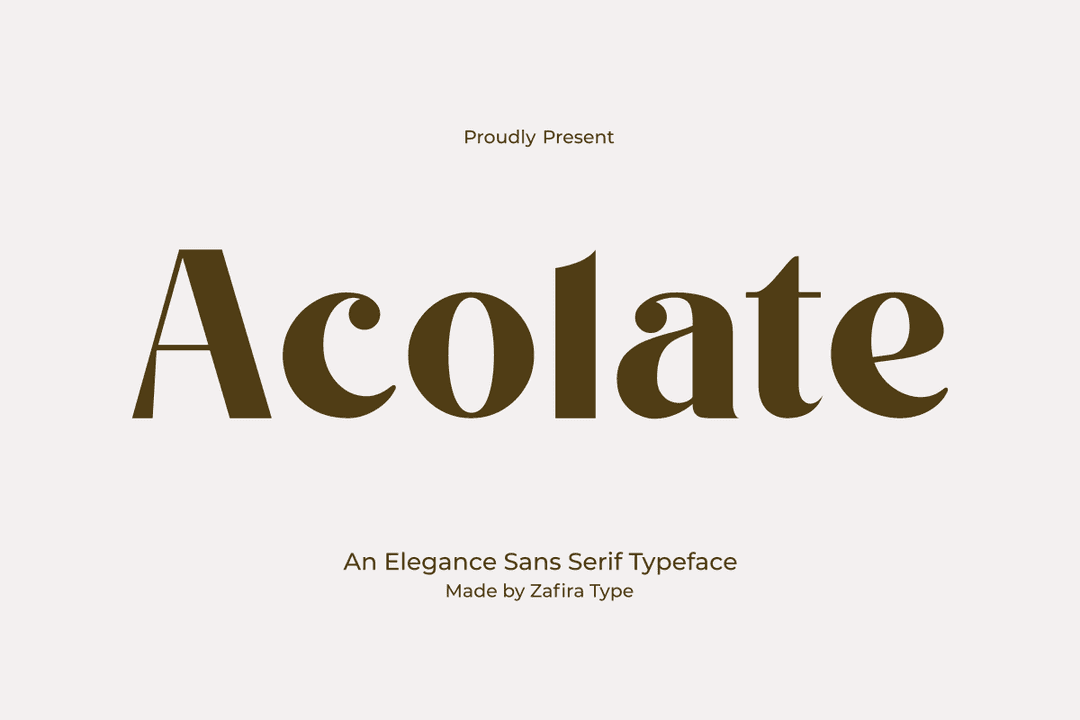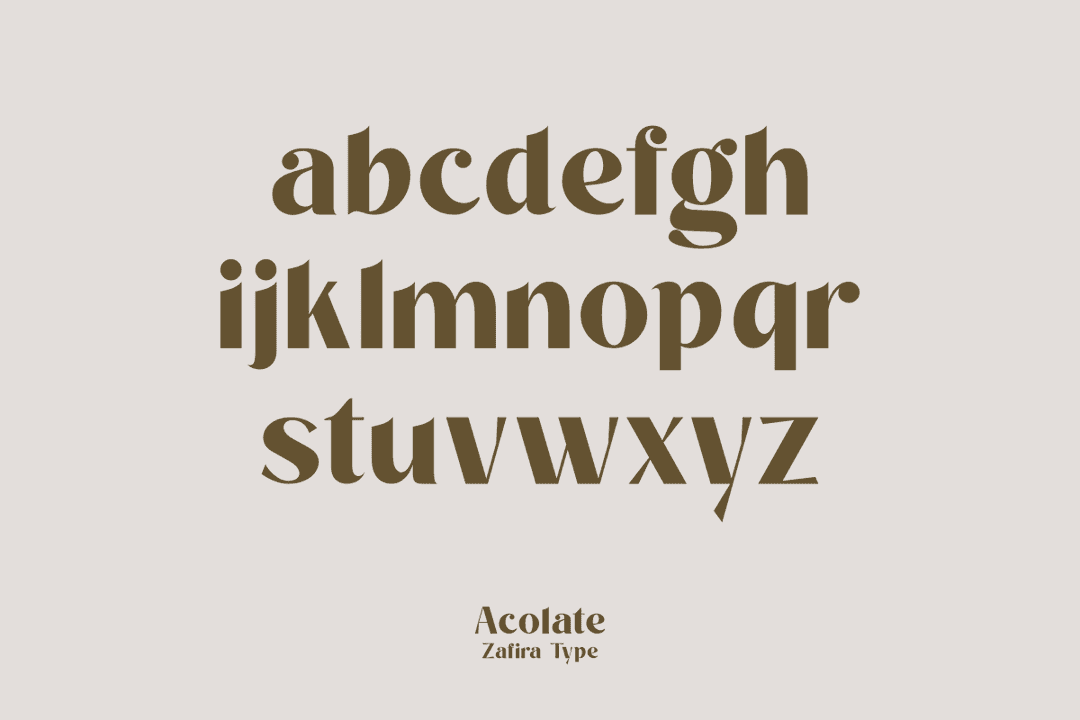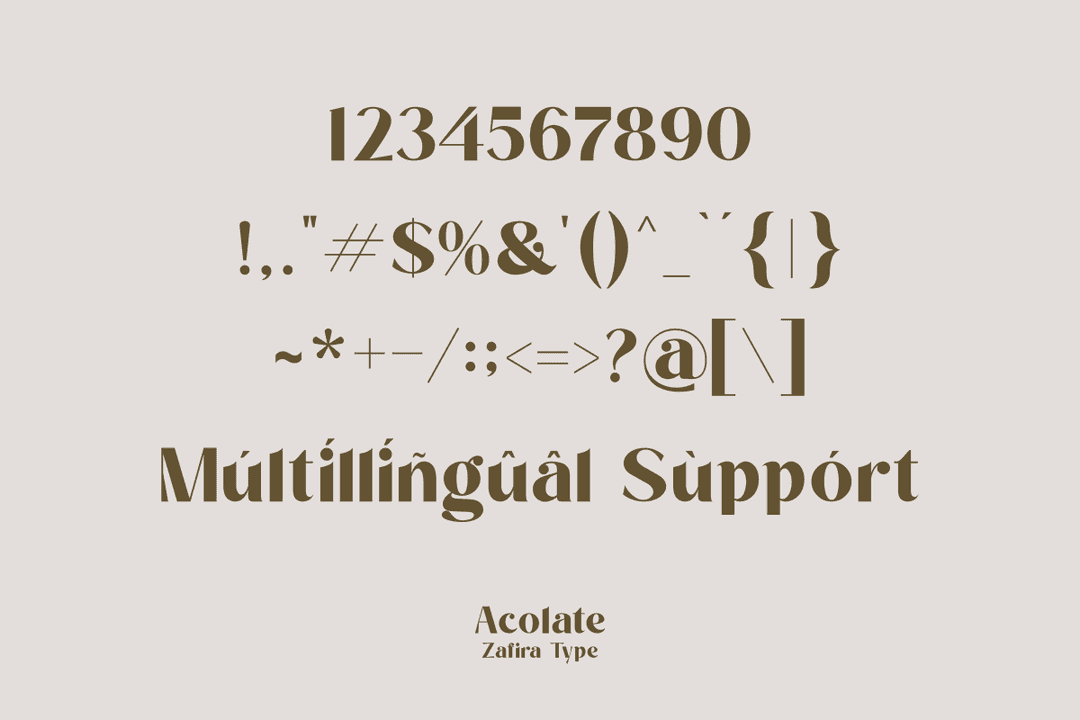
Acolate font is an optimal modern contrast sans-serif typeface, which is perfect for fashionable solutions in your project. The sleek and elegant lines of Acolate give this font a distinctive character that can be useful in giving shape to your vision. This font is perfect for logos as well as for any promotional material you want to create.